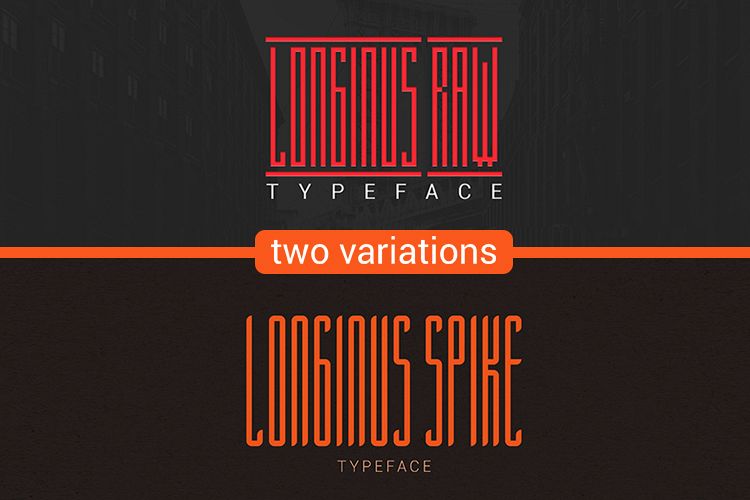
Longinus Typeface with two variations
Longinus Typeface is a font designed to be used for logos and graphic artworks. Longinus Typeface comes in two variations: Raw & Spike.